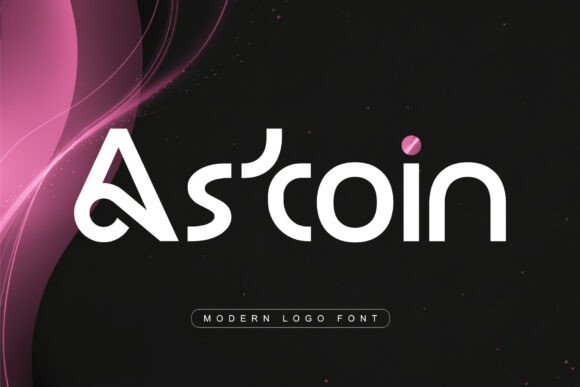
The Futuristic World of Astoin Font: A Designer’s Dream
I still remember the frustration of working on a project for a tech startup, searching for the perfect font that screamed innovation and modernity. The client’s request was simple: make their brand stand out in the crowded tech industry. But, as designers know, finding that one perfect font can be like searching for a needle in a haystack. That’s when I stumbled upon Astoin Font, a game-changer in the world of modern, futuristic typography.
What Makes Astoin Font Special?
Astoin is more than just a font; it’s a statement piece. This modern, futuristic logo font combines geometric precision with sleek minimalism, making it perfect for brands that want to exude confidence and digital sophistication. Here are some of the things I love about Astoin:
• ✨ Geometric Precision: Every curve and line in Astoin is crafted to represent innovation and technology.
• ✅ Smooth Futuristic Flow: The font’s sleek and modern design makes it perfect for AI technology, crypto projects, architecture firms, and digital branding.
• 💻 Distinctive Letterforms: Astoin’s unique letterforms help your brand stand out with a strong visual identity.
While Astoin is an amazing font, it’s not without its quirks. Here are some things to consider:
• ⚠️ Limited Use Cases: While Astoin is perfect for tech and digital branding, it might not be the best fit for more traditional or vintage designs.
• 🤔 Glyph Limitations: Some users have reported that the font could benefit from more glyphs and special characters.
While the actual designer of Astoin remains a mystery, it’s clear that the inspiration came from the futuristic and technological advancements of our modern world. Imagine a designer who spent countless hours researching and experimenting with geometric shapes, sleek lines, and minimalist designs. The result is a font that embodies innovation and sophistication.
Q: What makes Astoin Font unique?
A: Astoin’s unique blend of geometric precision and sleek minimalism makes it perfect for modern branding and tech-forward designs.
Q: Is Astoin suitable for print designs?
A: While Astoin is optimized for digital use, it can be used for print designs, especially those with a modern and tech-savvy theme.